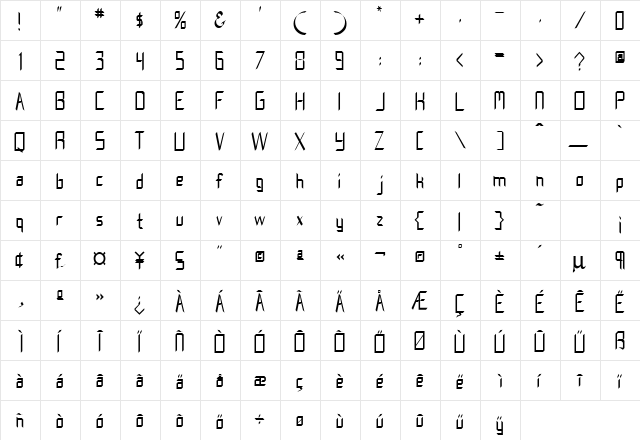
Trek Generation Regular Regular
Design Context for Trek Generation Regular Typeface
Trek Generation Regular takes a measured approach to typography — its balanced proportions and neutral character make it a reliable workhorse for both digital and print work.